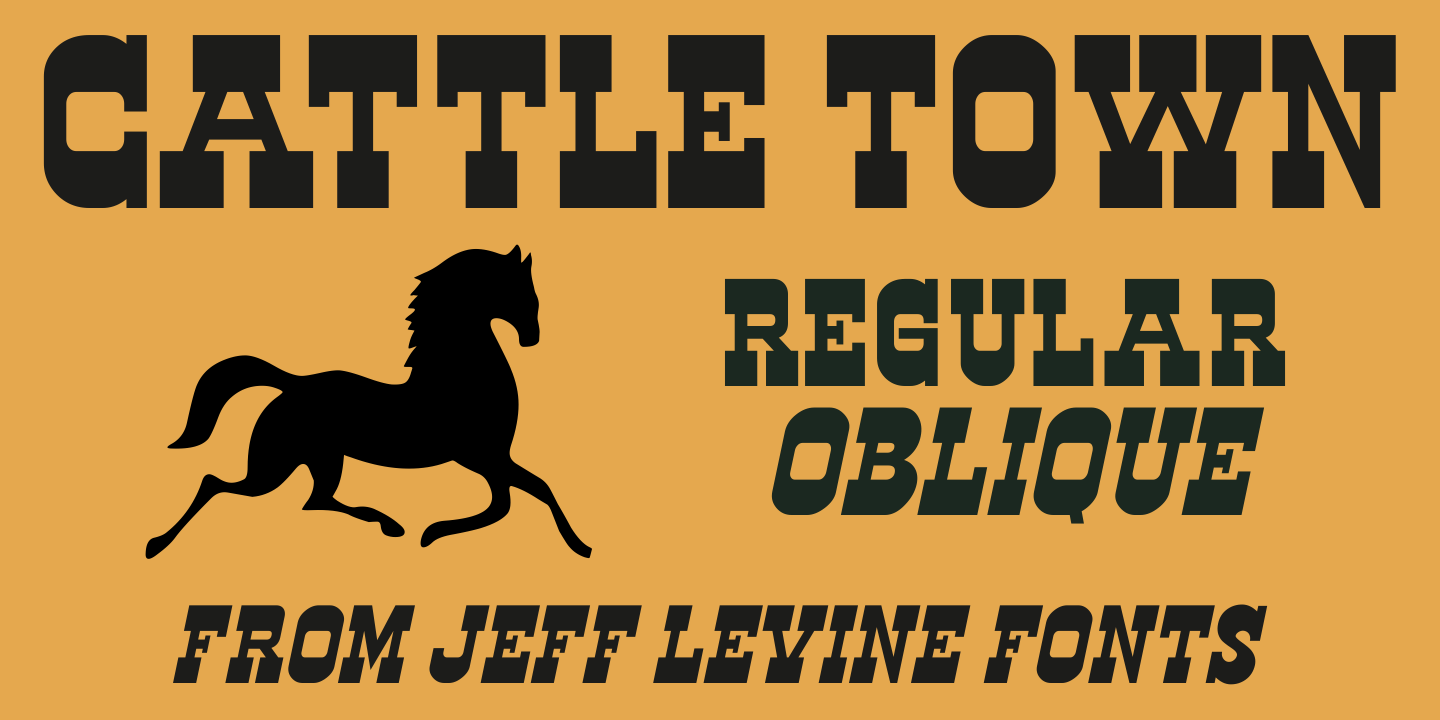
Cattle Town JNL Font is perfect for western-themed restaurants, ranch branding, cowboy entertainment venues, rodeo event marketing, country music promotions, BBQ establishments, outdoor adventure companies, western wear retailers, and any project requiring typography with authentic frontier spirit and rugged American West aesthetics.
What makes Cattle Town JNL Font exciting is its frontier authenticity that captures the rugged spirit and untamed energy of the American Old West with weathered letterforms that evoke dusty cattle drives, frontier settlements, and the bold independence of cowboy culture. This distinctive typeface embodies the raw adventure and pioneering determination of western expansion with sturdy construction that reflects the practical resilience and honest craftsmanship of frontier life. The font's western character and frontier appeal make it perfect for brands celebrating American heritage, outdoor adventure, and the timeless values of western tradition.
The Cattle Town JNL Font family includes regular weight with complete uppercase and lowercase alphabets, numerals, punctuation marks, and western-inspired design elements. The font maintains consistent frontier character throughout all letterforms while ensuring excellent readability for both commanding headlines and detailed western-themed text applications in entertainment and hospitality contexts.
Whether you're designing for western entertainment venues, creating ranch tourism materials, or developing cowboy-themed branding with authentic frontier aesthetics, Cattle Town JNL Font Free Download brings unmatched western authenticity and frontier spirit to your projects. This remarkable typeface transforms ordinary text into powerful expressions of American western heritage that honor the courage, independence, and rugged determination of frontier pioneers. The font's authentic character makes it ideal for western entertainment, outdoor recreation, and heritage tourism. Download this exceptional font today and bring the genuine spirit of the American frontier to your design projects with authentic western sophistication and cattle town charm.